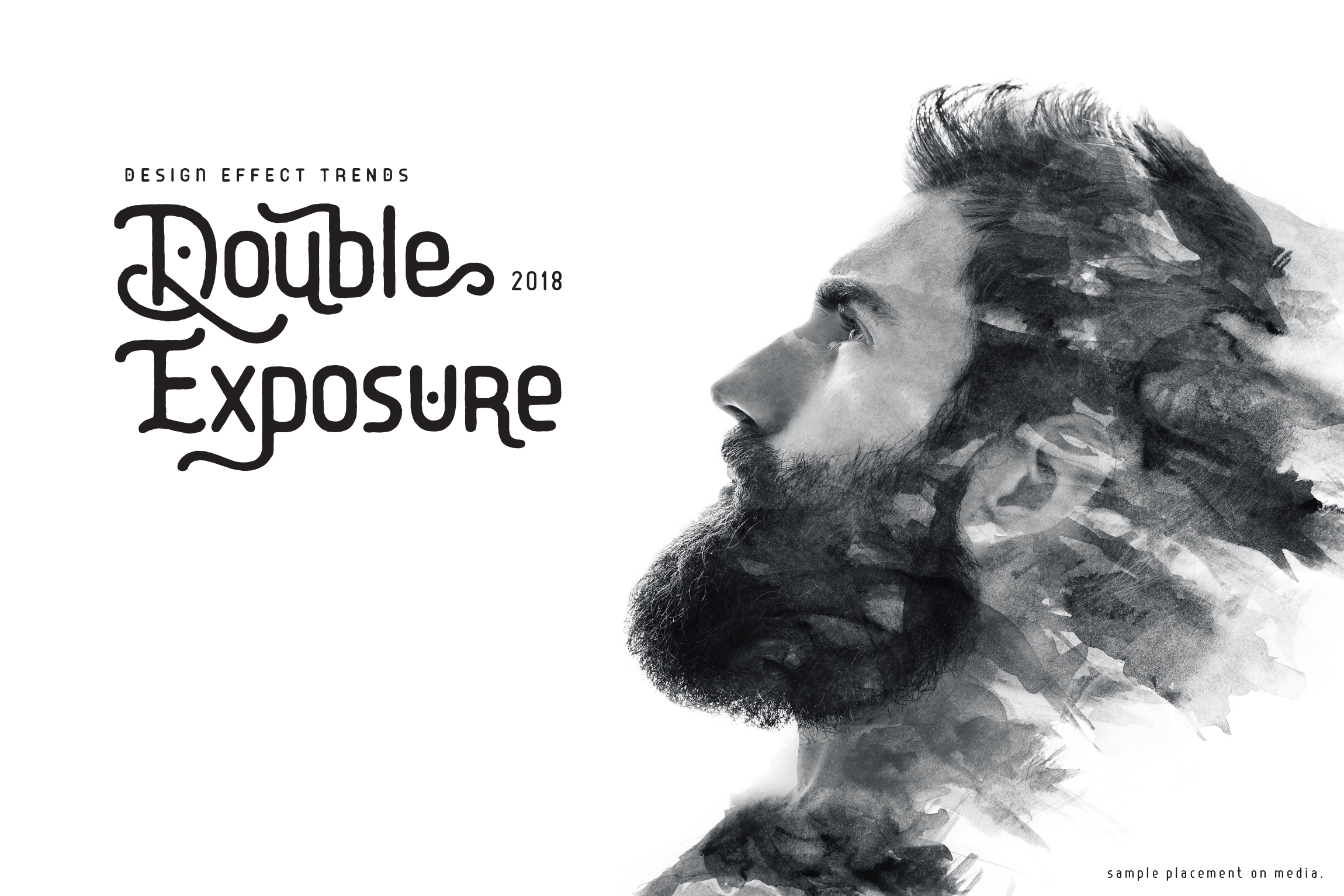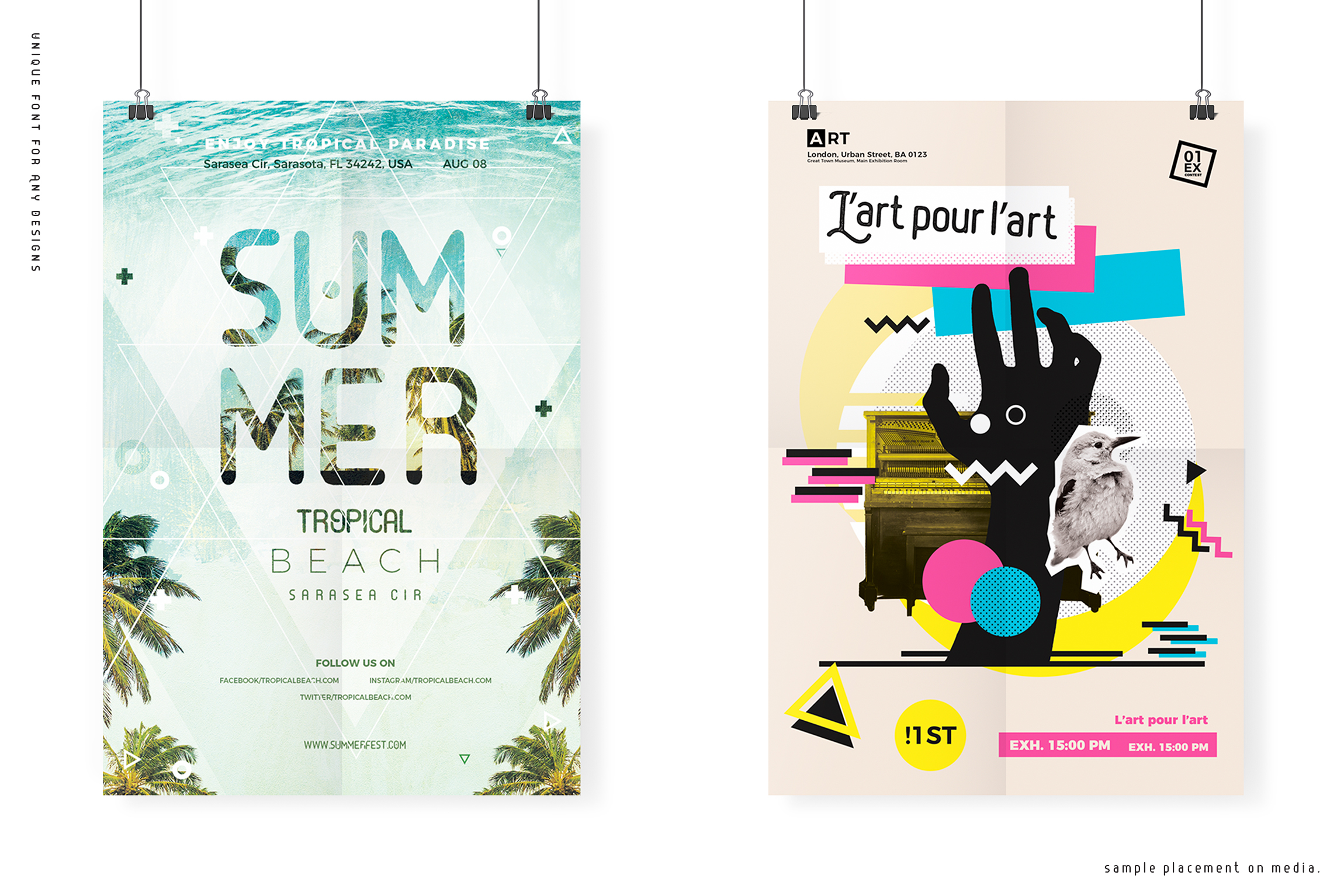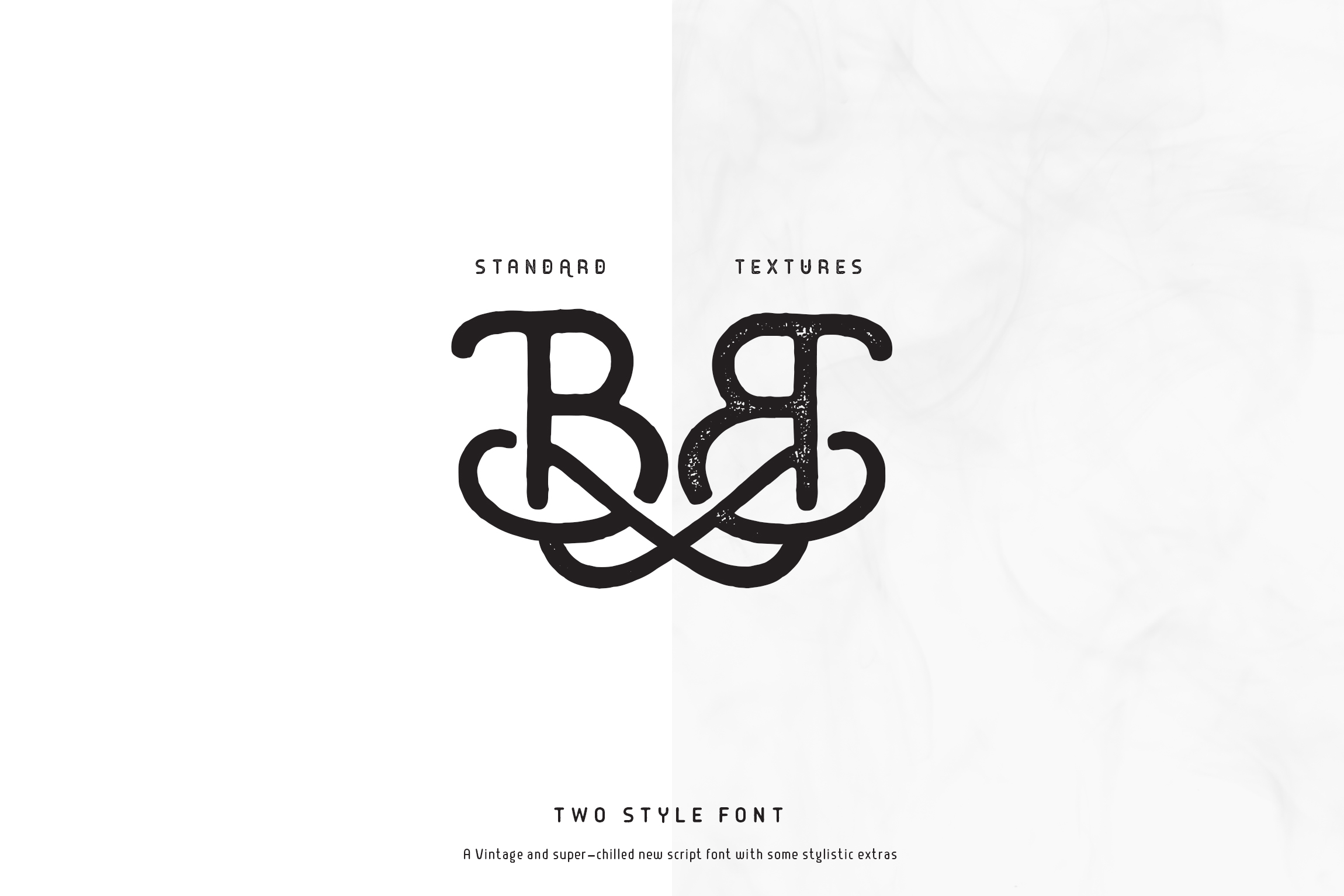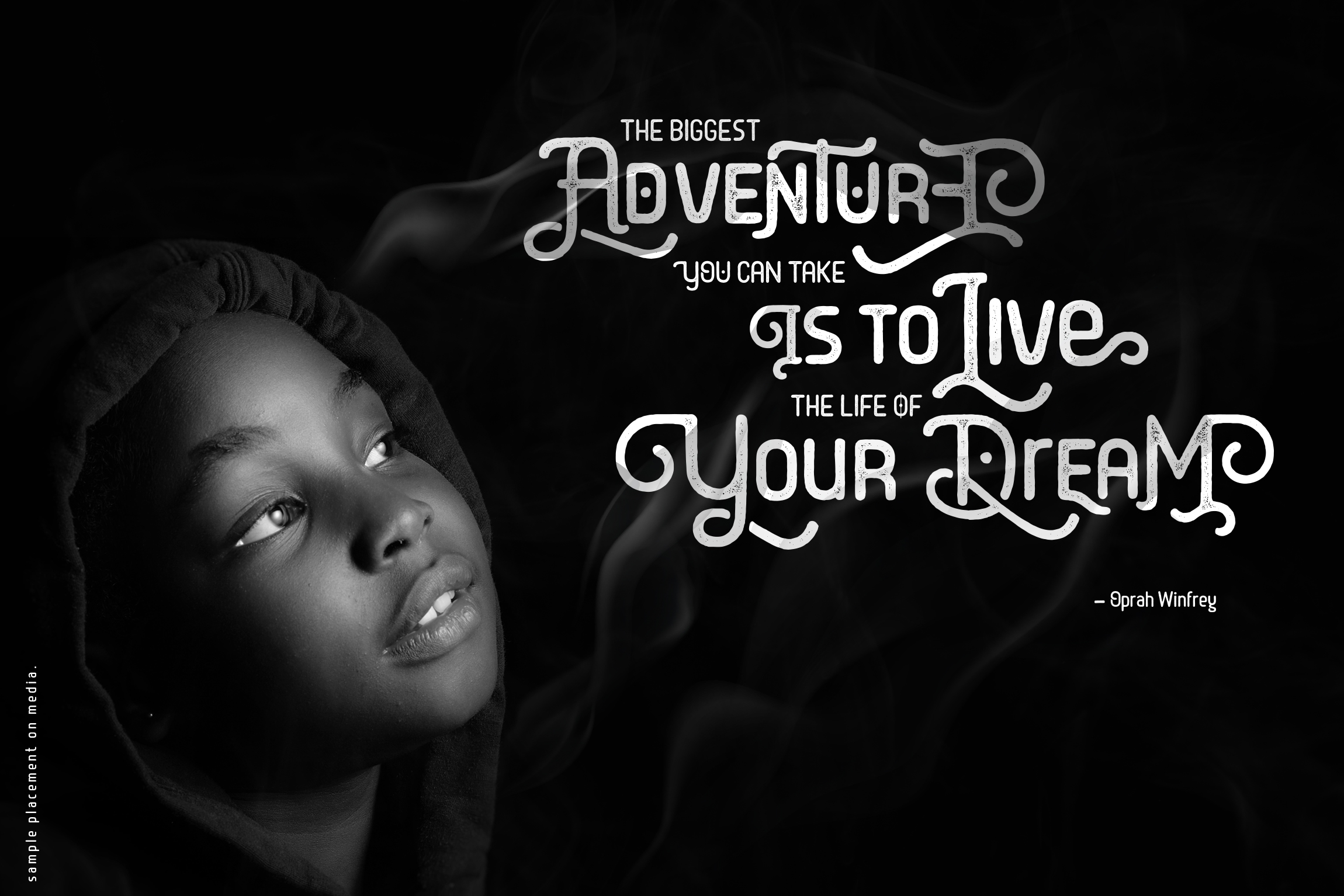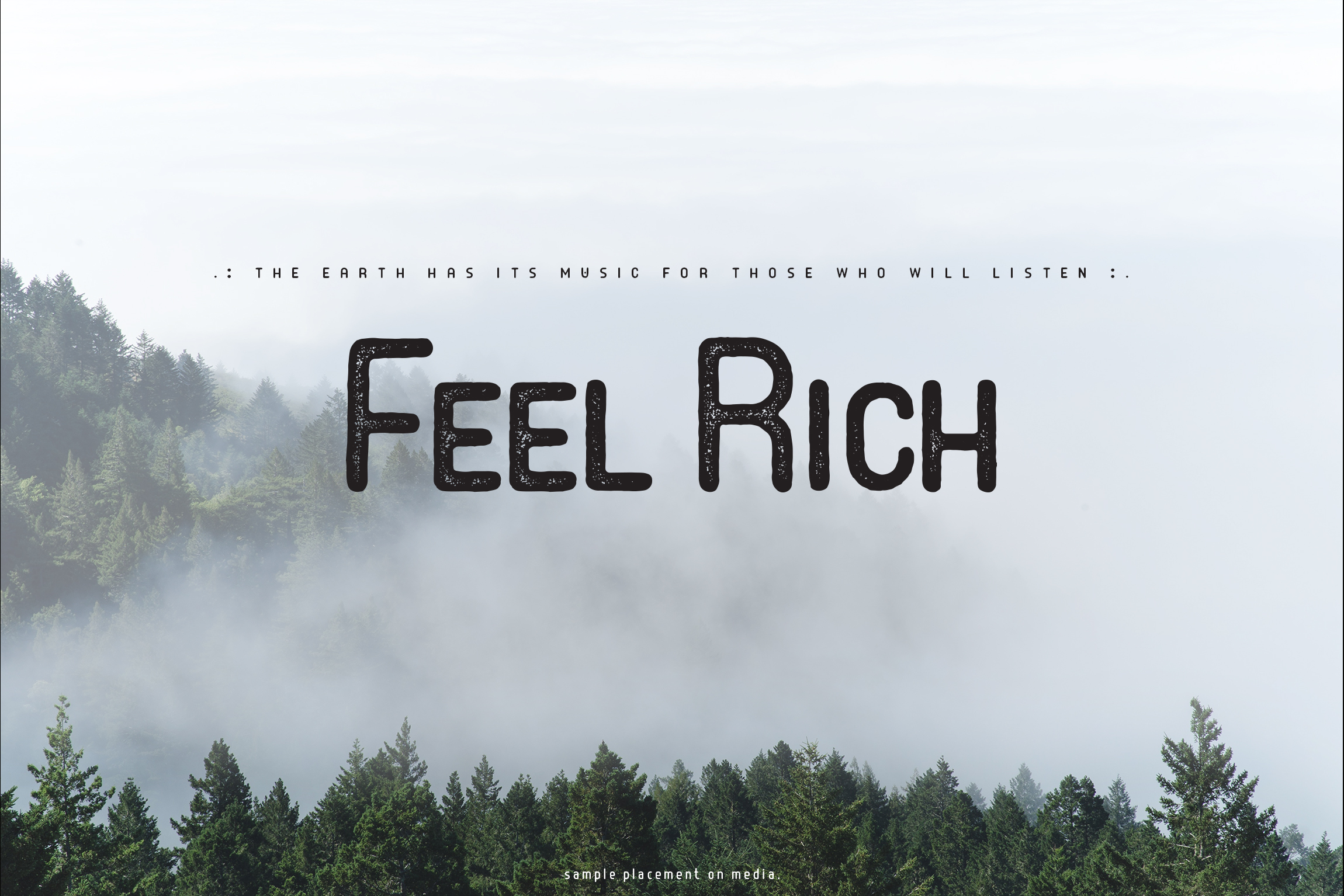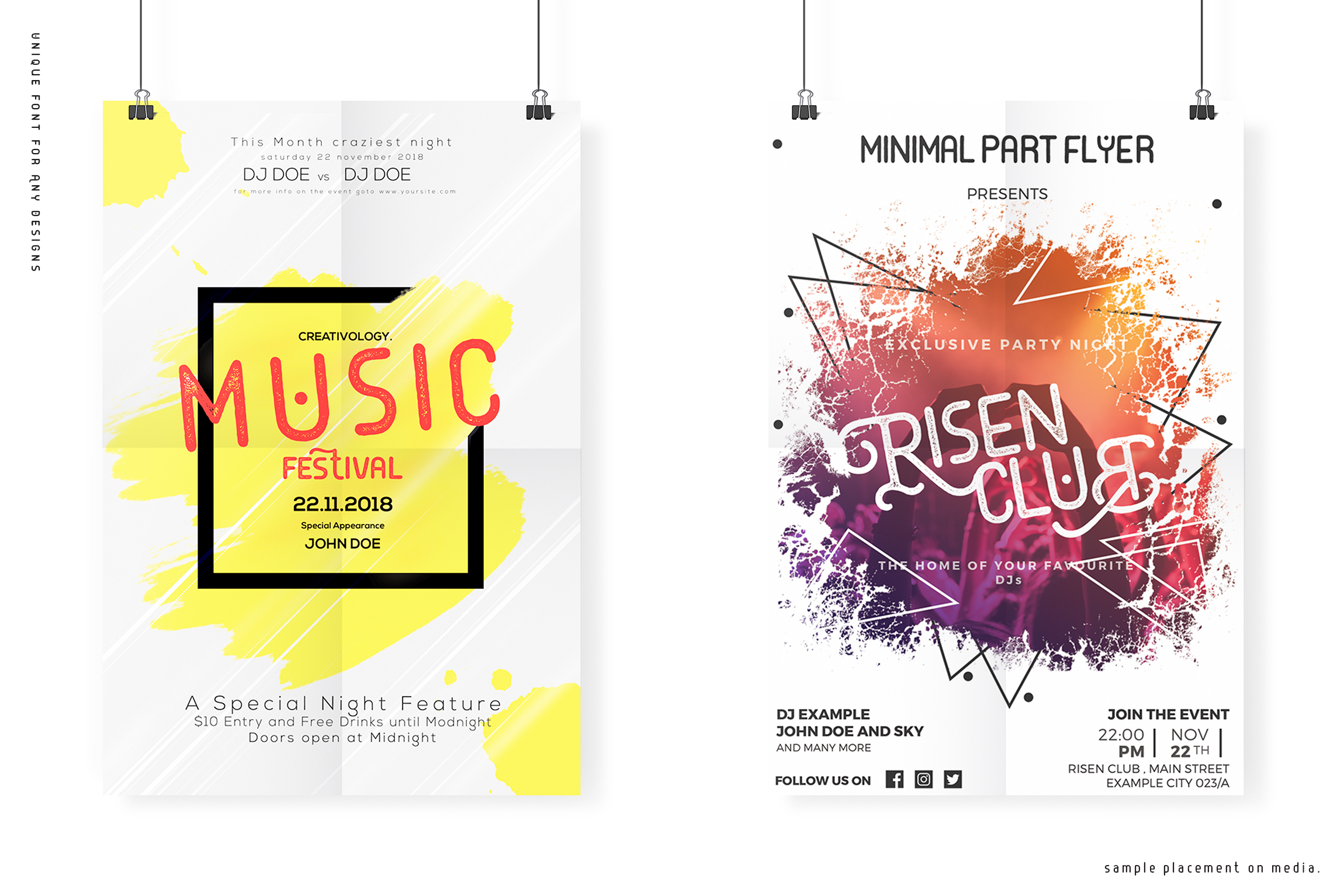
Have you ever been working on a design project, and suddenly, you’re stuck on finding the perfect font? I recall a recent experience where I was tasked with creating a luxurious logo for a high-end brand. The client wanted something that exuded elegance and sophistication, but I was struggling to find a font that fit the bill. That’s when I stumbled upon Batriysh Font, created by Sotibrother. This bold script typeface has been a game-changer for me, and I’m excited to share my experience with you.
First Impressions: A Beautiful and Luxuriant Font
Batriysh Font is uniquely crafted to give your designs a monogram appeal. Its beautiful and luxuriant style makes it perfect for creating appealing logotypes. The font’s bold and elegant appearance is sure to elevate your designs and add a touch of sophistication.
- ✨ Unique Monogram Appeal: Batriysh Font’s distinctive style sets it apart from other fonts, making it perfect for creating luxurious logotypes.
- ✅ Elegant and Sophisticated: The font’s bold and elegant appearance makes it suitable for high-end brands and designs.
- 💫 High-Quality Design: The font is beautifully crafted, with attention to detail and a clear focus on aesthetics.
While Batriysh Font is an excellent choice for many designs, there are a few things to keep in mind:
- ⚠️ Limited Use Cases: Due to its bold and elegant style, Batriysh Font may not be suitable for body text or smaller font sizes.
- 🤔 Glyph Limitations: While the font has a range of glyphs and OpenType features, it may not have as many alternatives as some other fonts.
The Designer Inspiration Behind Batriysh Font
Sotibrother, the creator of Batriysh Font, is a talented designer with a passion for typography. According to Sotibrother, the inspiration behind Batriysh Font came from a desire to create a unique and elegant script font that would add a touch of sophistication to any design. With its bold and luxurious style, Batriysh Font is sure to become a favorite among designers and crafters.
Q: What is Batriysh Font?
A: Batriysh Font is a bold script typeface created by Sotibrother, designed to give your designs a monogram appeal.
Q: What is Batriysh Font used for?
A: Batriysh Font is perfect for creating luxurious logotypes, branding, and designs that require an elegant and sophisticated touch.